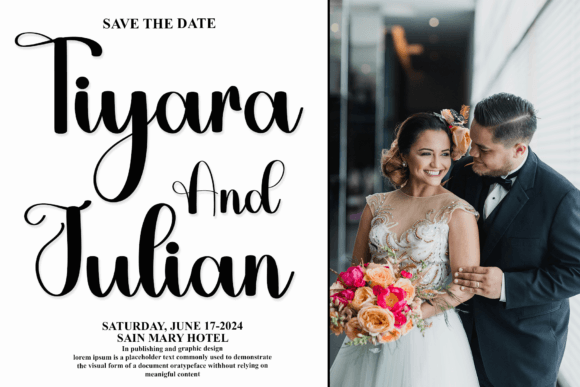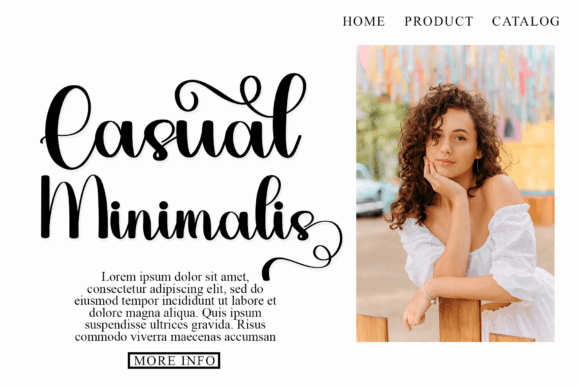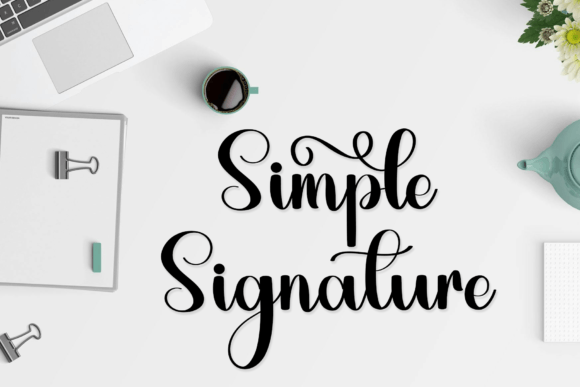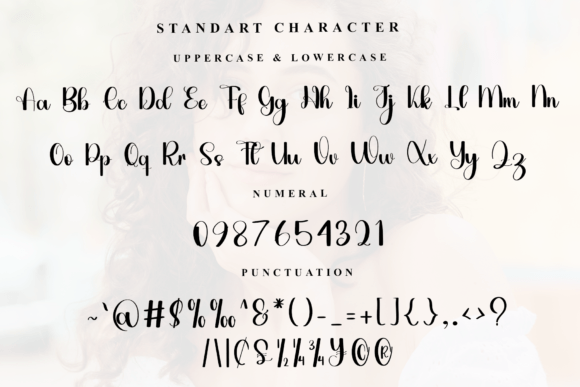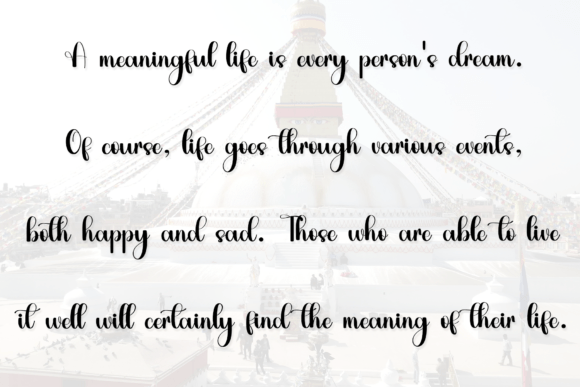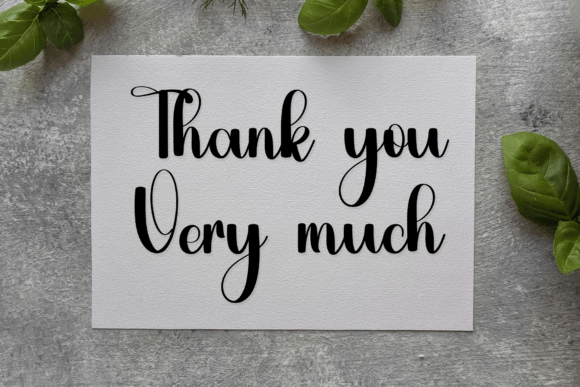
Discover the Charming Angels Font: Elevate Your Designs with Fresh Elegance
In the world of typography, few fonts manage to capture the essence of freshness and casual elegance as effortlessly as Angels Font. This charming handwritten font is designed to bring a laid-back vibe to your design projects, making it an ideal choice for creatives looking to infuse their work with warmth and personality. In this article, we’ll delve into the unique characteristics of Angels Font, explore its versatility, and discuss how it can elevate your designs across various applications.
The Unique Charm of Angels Font
Angels Font stands out with its fluid strokes and organic lines, which contribute to its distinctive charm. The font’s design is rooted in the principles of handwritten typography, offering a natural and approachable feel that resonates with audiences. Its characters are crafted with a sense of movement and fluidity, giving the font a dynamic and lively appearance. This makes Angels Font perfect for designs that require a personal touch, such as branding, invitations, and social media graphics.
Key Features of Angels Font
• Fluid Strokes and Organic Lines: The font’s fluidity gives it a natural, handwritten look that is both elegant and casual.
• Laid-Back Vibe: Angels Font embodies a laid-back aesthetic, making it suitable for designs that aim to convey a sense of ease and approachability.
• Versatility: From branding and logos to invitations and social media graphics, Angels Font can be used across a wide range of design projects.
• Warmth and Personality: The font adds a touch of warmth and personality to any design, helping to create a stronger connection with the audience.
Applications of Angels Font
The versatility of Angels Font makes it a valuable asset for designers and crafters working on various projects. Here are some of the key areas where Angels Font can make a significant impact:
Branding and Logos
In the realm of branding, establishing a unique and memorable identity is crucial. Angels Font can help businesses achieve this with its distinctive and elegant appearance. Whether you’re designing a logo, letterhead, or packaging, this font can add a touch of sophistication and approachability to your brand.
Invitations and Stationery
For crafters and designers working on invitations, greeting cards, and stationery, Angels Font offers a beautiful way to add a personal touch. Its elegant yet casual vibe makes it perfect for wedding invitations, birthday cards, and other personal correspondence.
Social Media Graphics
In the digital age, social media graphics play a vital role in engaging audiences and conveying messages effectively. Angels Font can help elevate your social media presence with its fresh and elegant appearance. Use it for quotes, promotions, or informational graphics to add a touch of personality to your content.
Tips for Using Angels Font Effectively
To make the most of Angels Font, consider the following tips:
• Pair with Complementary Fonts: Combine Angels Font with clean, sans-serif fonts for contrast and visual interest.
• Adjust Letter Spacing: Experiment with letter spacing to enhance readability and aesthetic appeal.
• Use in Headers and Titles: Take advantage of the font’s elegance by using it in headers and titles where you want to make a strong impact.
Angels Font is a charming and versatile handwritten font that brings a sense of freshness and casual elegance to any design project. Its fluid strokes, organic lines, and laid-back vibe make it an excellent choice for designers and crafters looking to add warmth and personality to their work. Whether you’re working on branding, invitations, social media graphics, or any other design project, Angels Font is sure to elevate your creations and leave a lasting impression on your audience.
Embrace the unique charm of Angels Font and discover how it can transform your designs with its fresh elegance and approachable aesthetic.